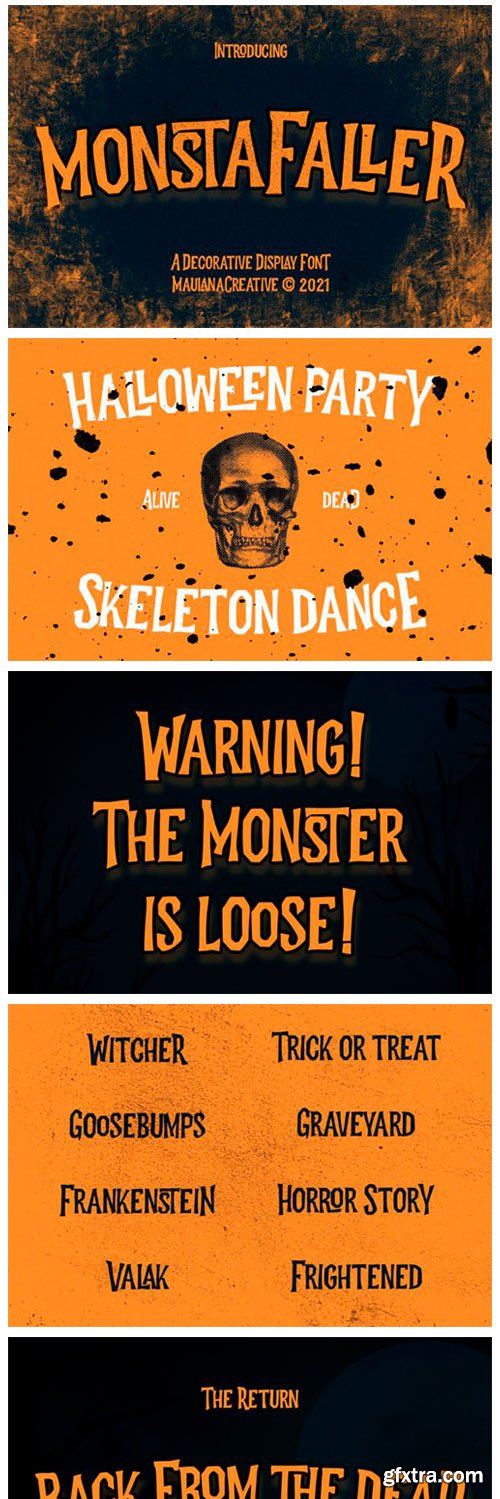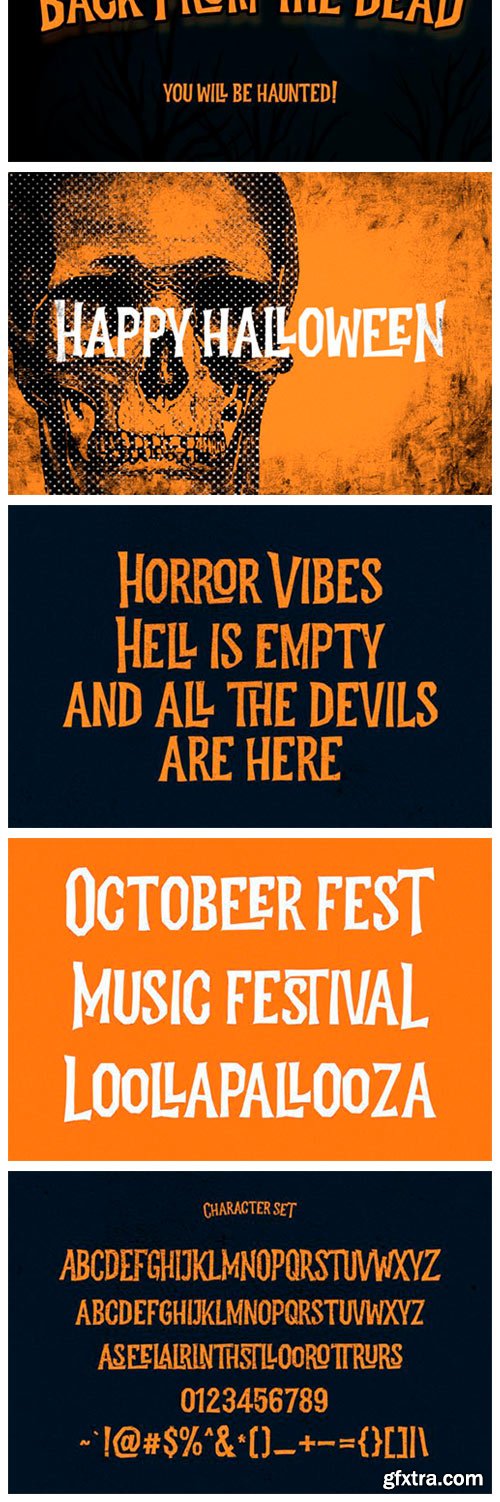
Monstafaller Font
Monstafaller is a cool, bold and fun display font. This font is imposing and features uniquely shaped letters, and as a result, it will easily match a wide range of creations that require a distinct touch.
Monstafaller Font
Monstafaller is a cool, bold and fun display font. This font is imposing and features uniquely shaped letters, and as a result, it will easily match a wide range of creations that require a distinct touch.